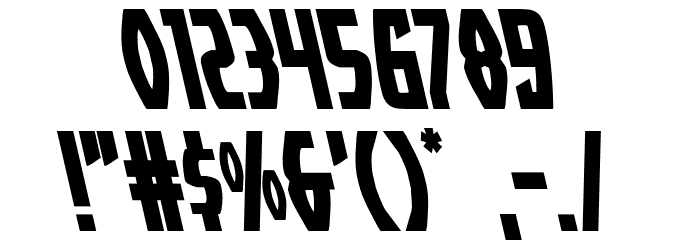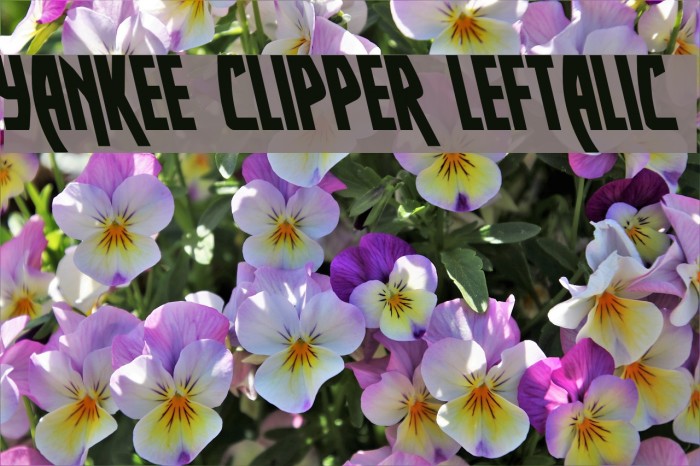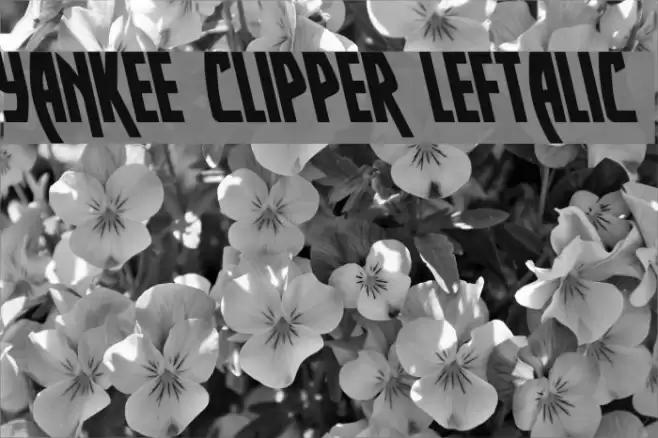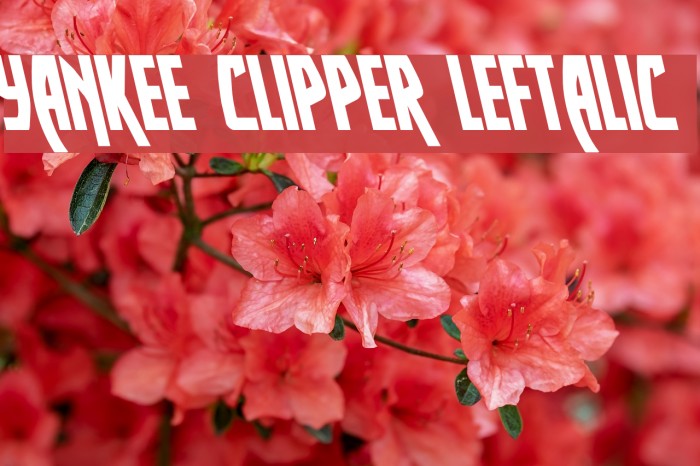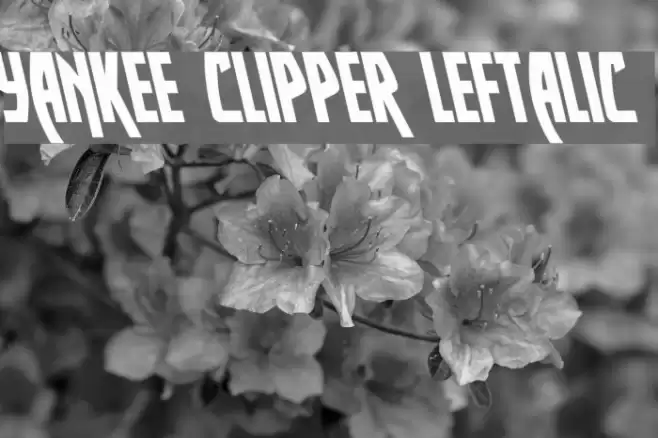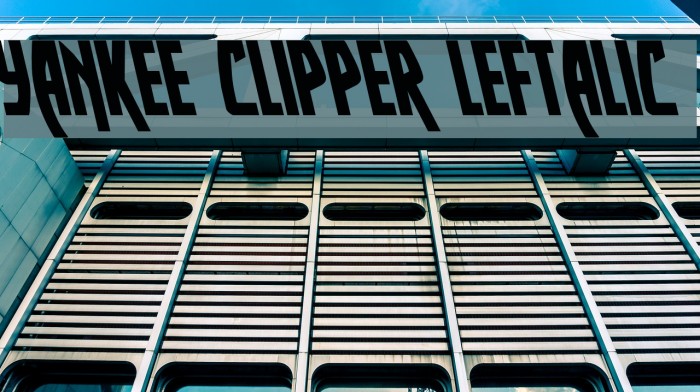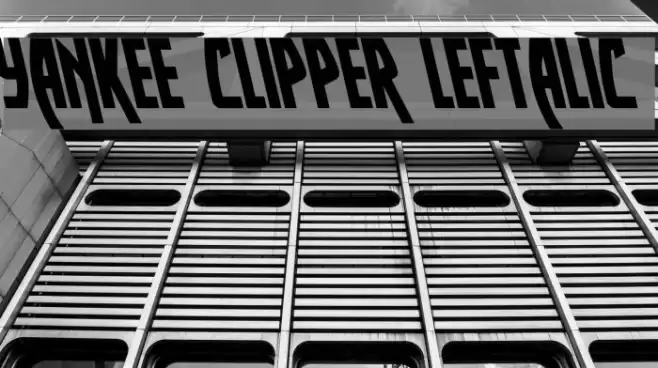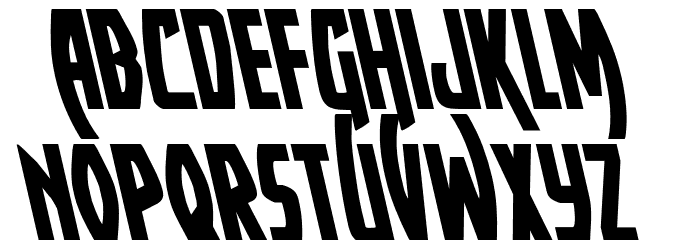
Yankee Clipper Leftalic Font
This font features a bold and dynamic style with a distinct leftward slant, giving it a sense of movement and energy. The characters are thick and angular, with sharp edges and a slightly condensed form. The uppercase and lowercase letters maintain a consistent width, while the numbers and special characters are designed to match the overall aesthetic. This font's unique style makes it stand out, making it ideal for attention-grabbing designs.
A bold, slanted font with angular, condensed characters.
• Proposed Projects: Ideal for sports branding, dynamic posters, and edgy graphic designs.
• Category: Decorative/Display
• Bold: Yes
• Italic: Yes
• Weight: Bold
• Width: Condensed
• Character Spacing: Normal
• Contrast: Medium
• Overall Style: Modern
• Use Case: Headlines, Logos